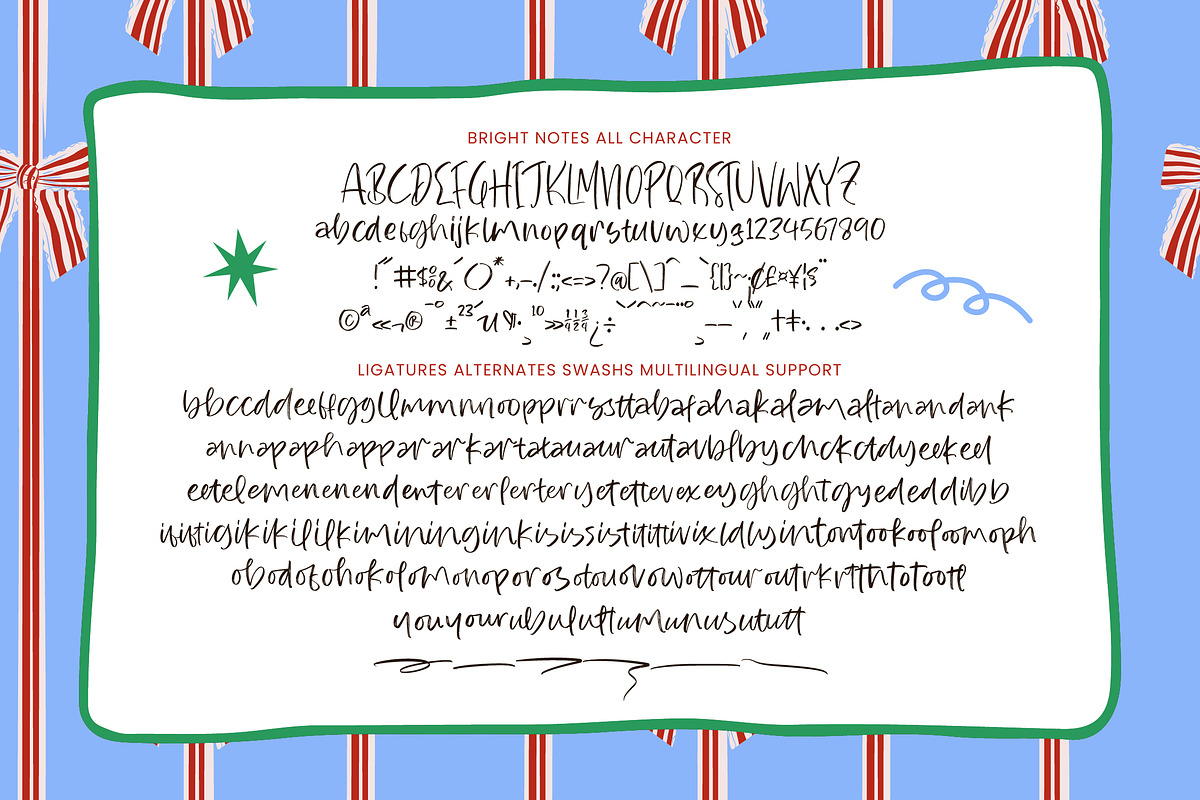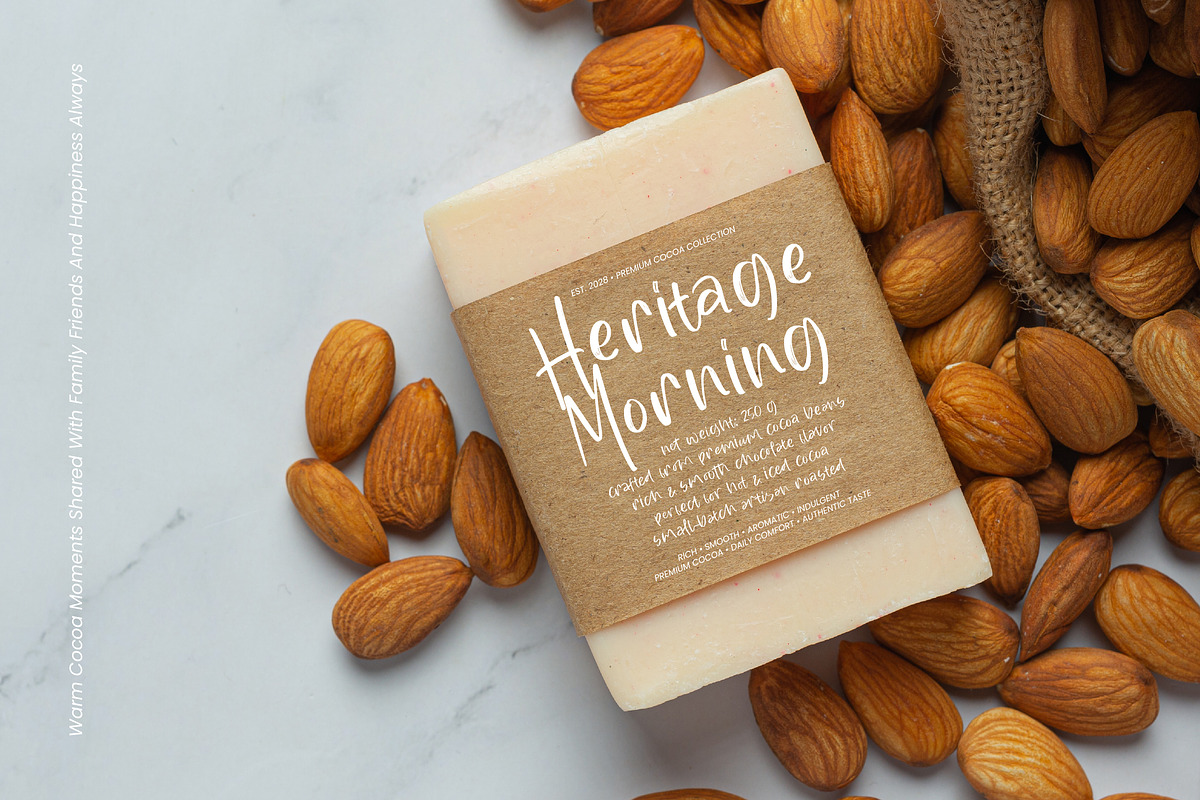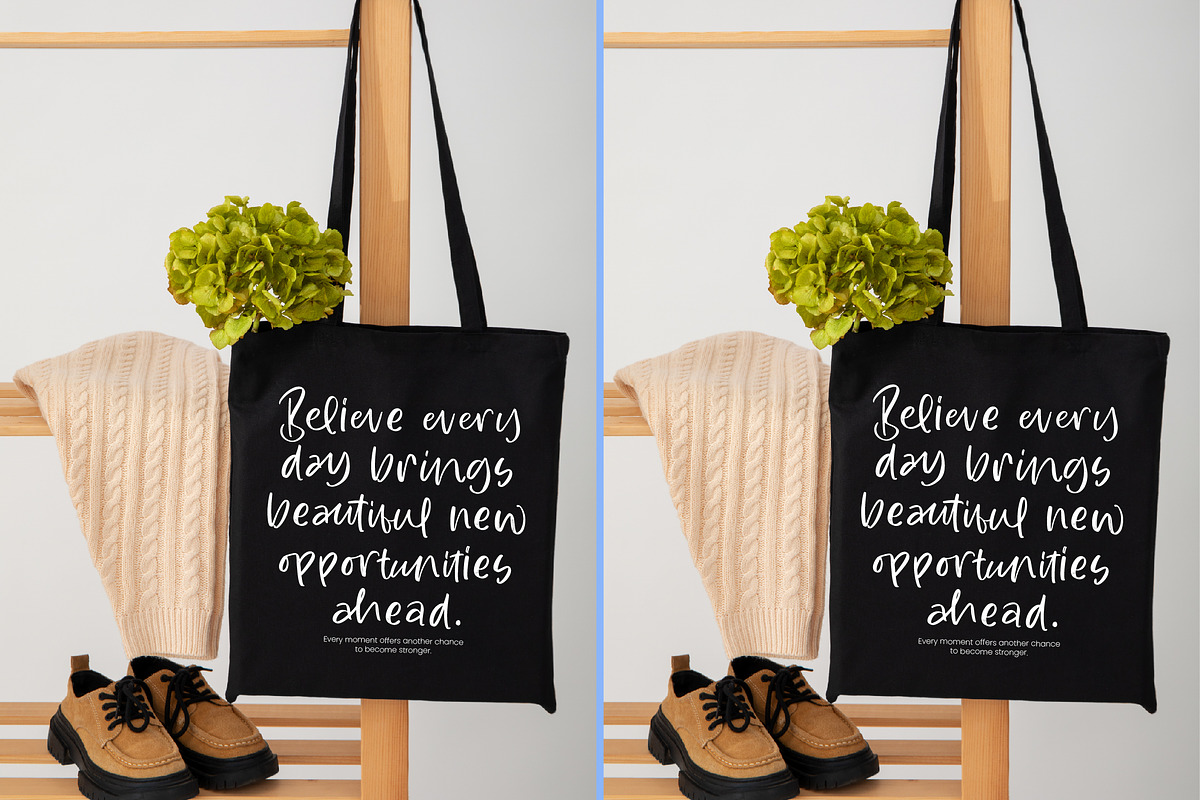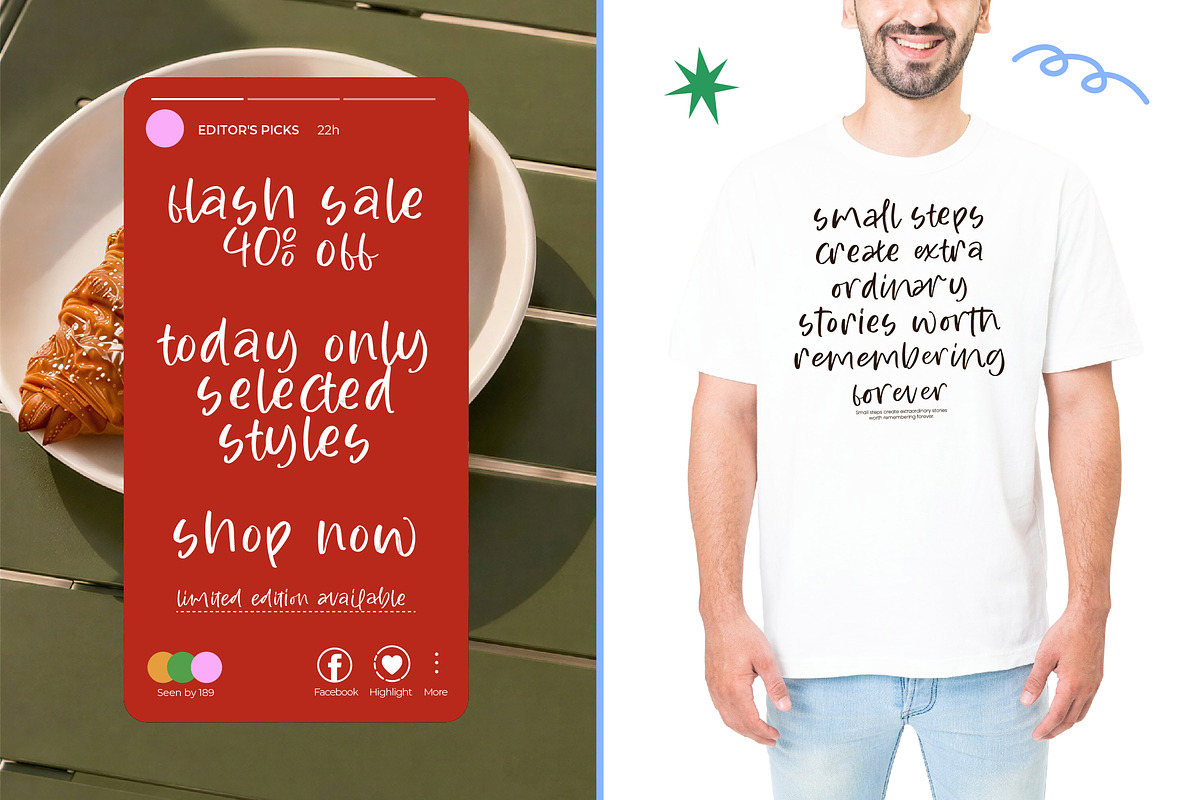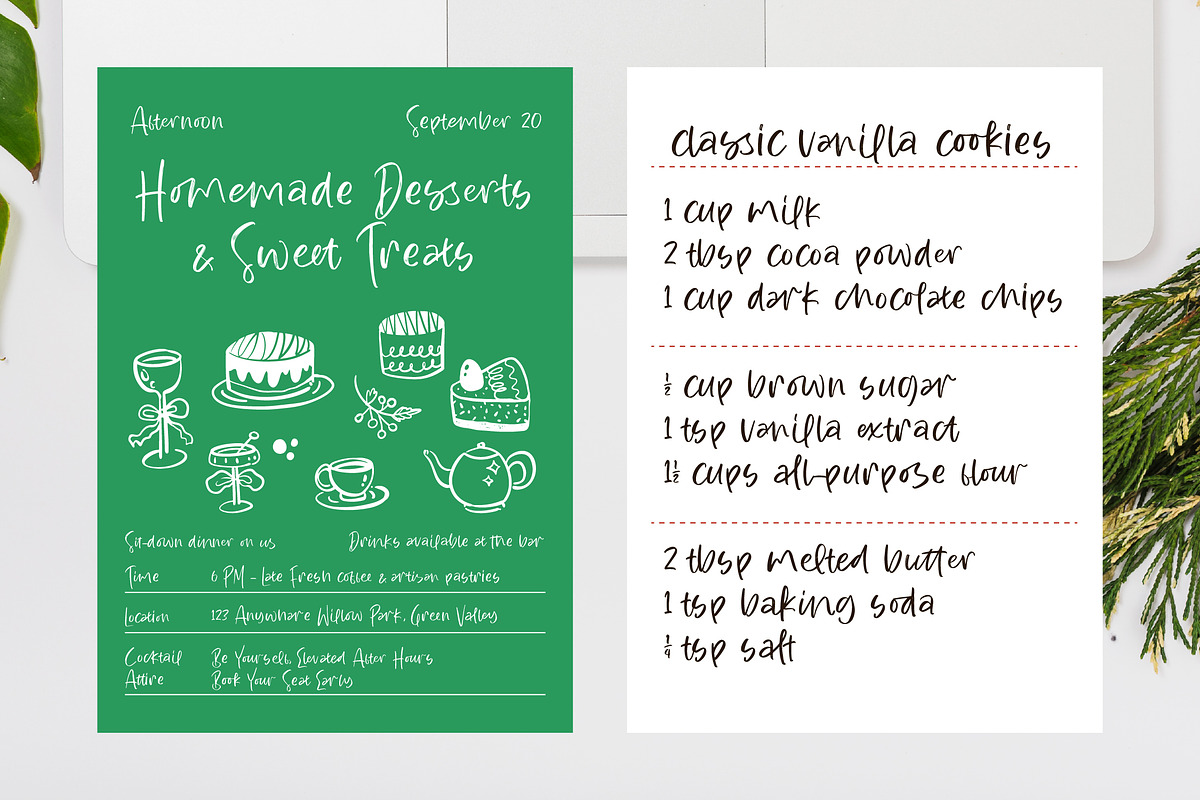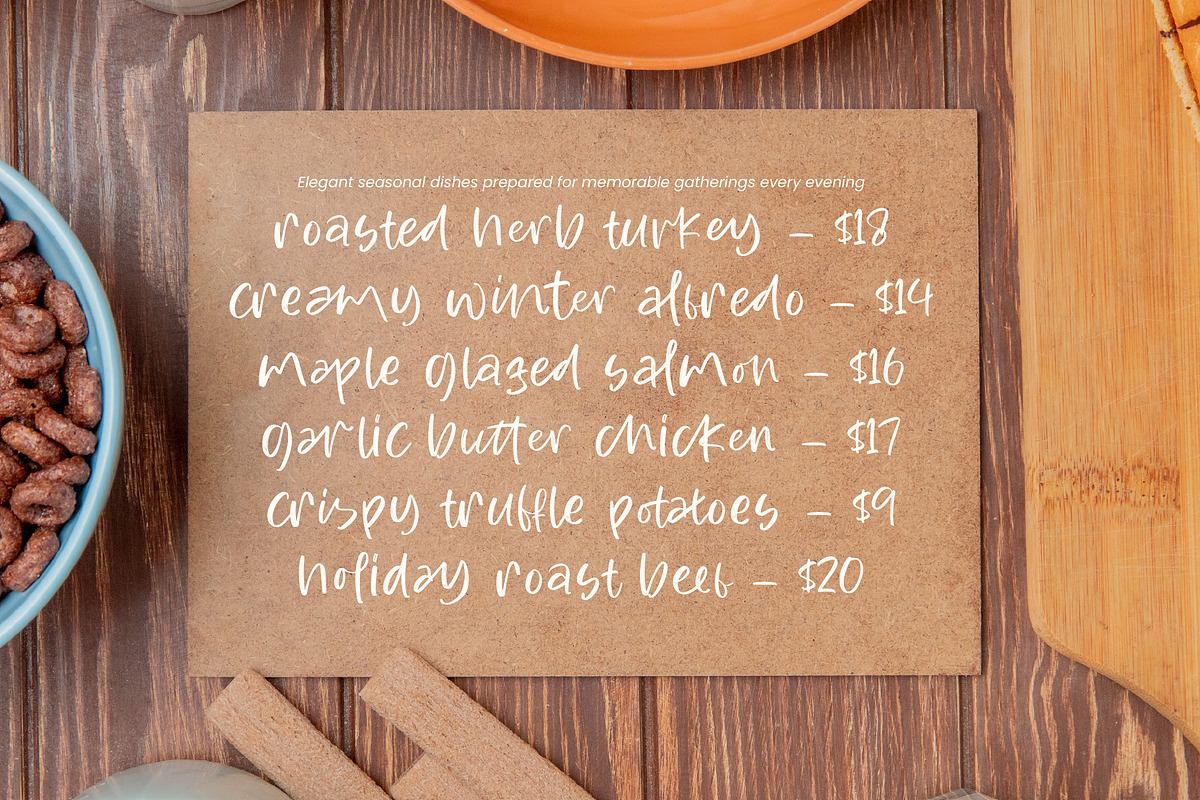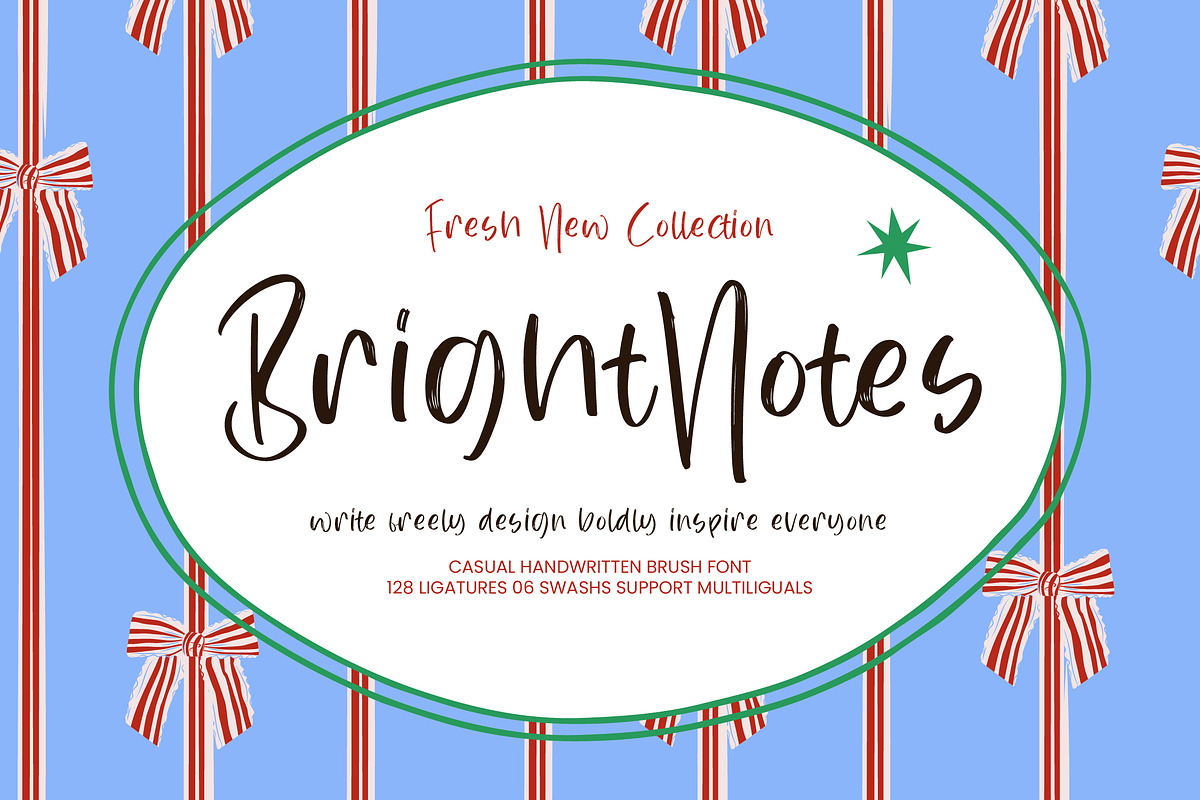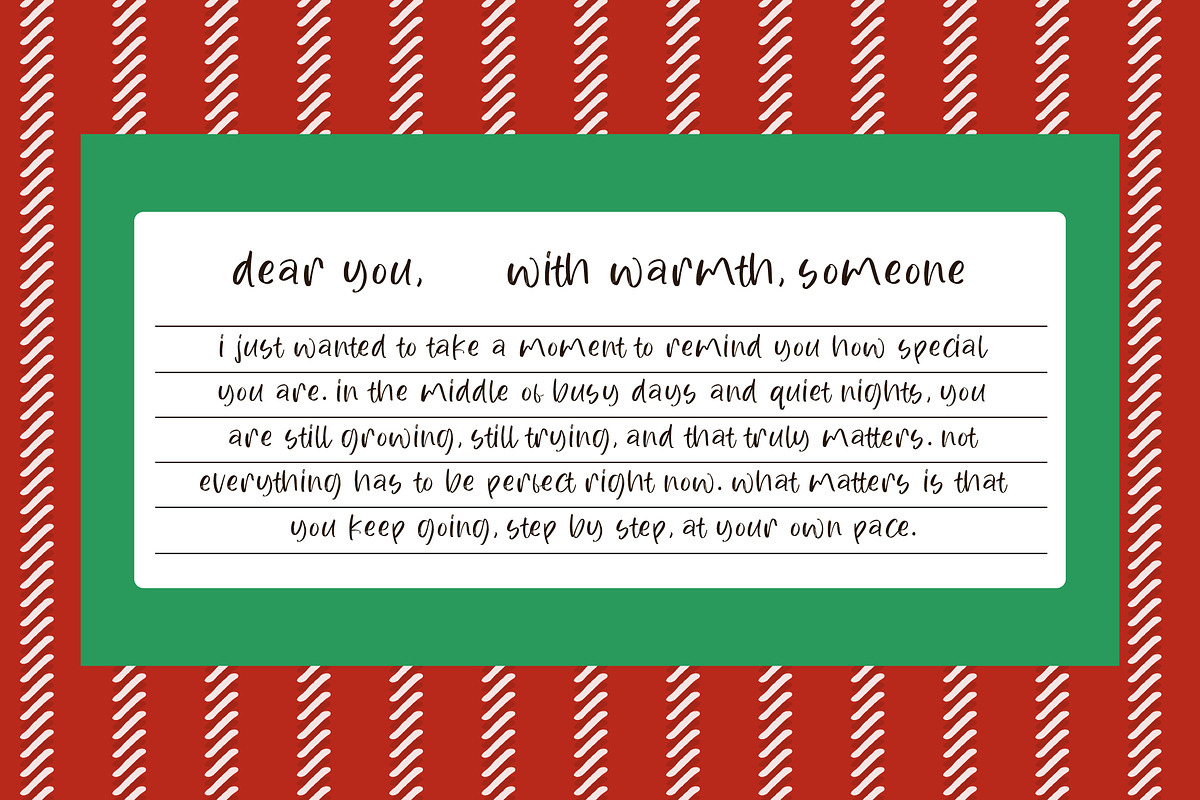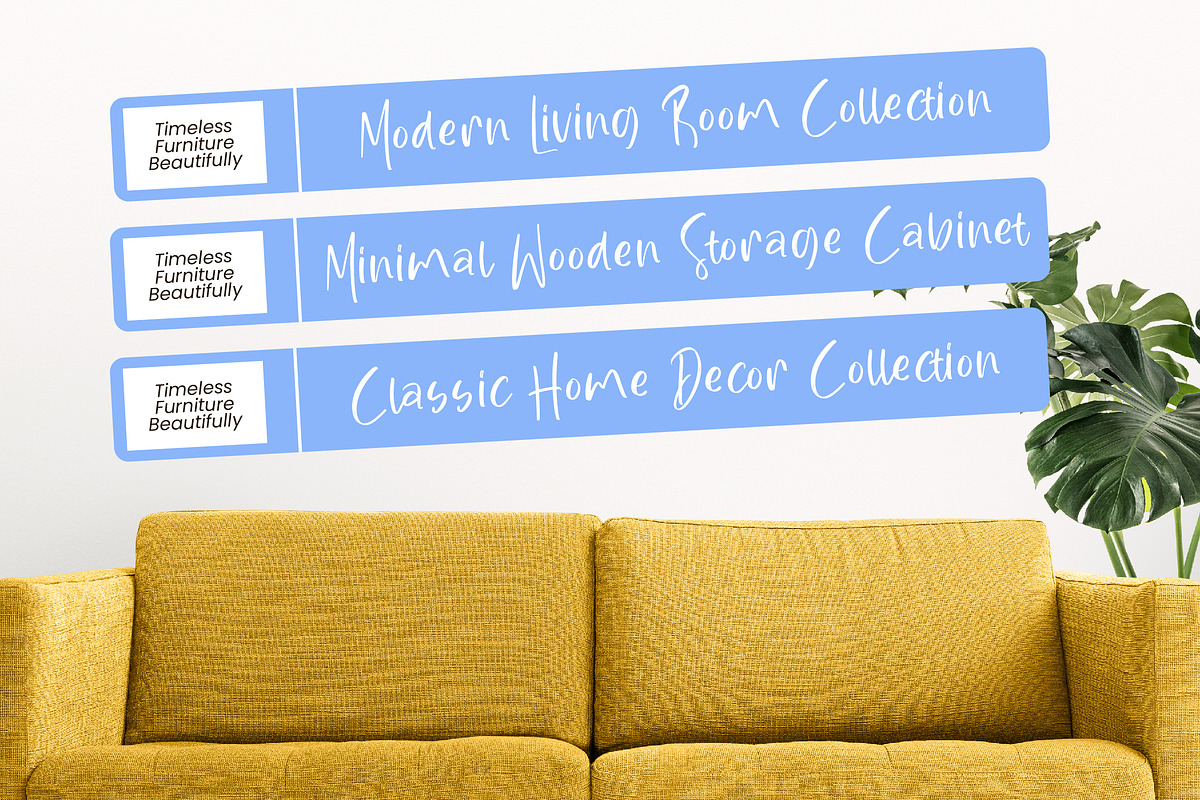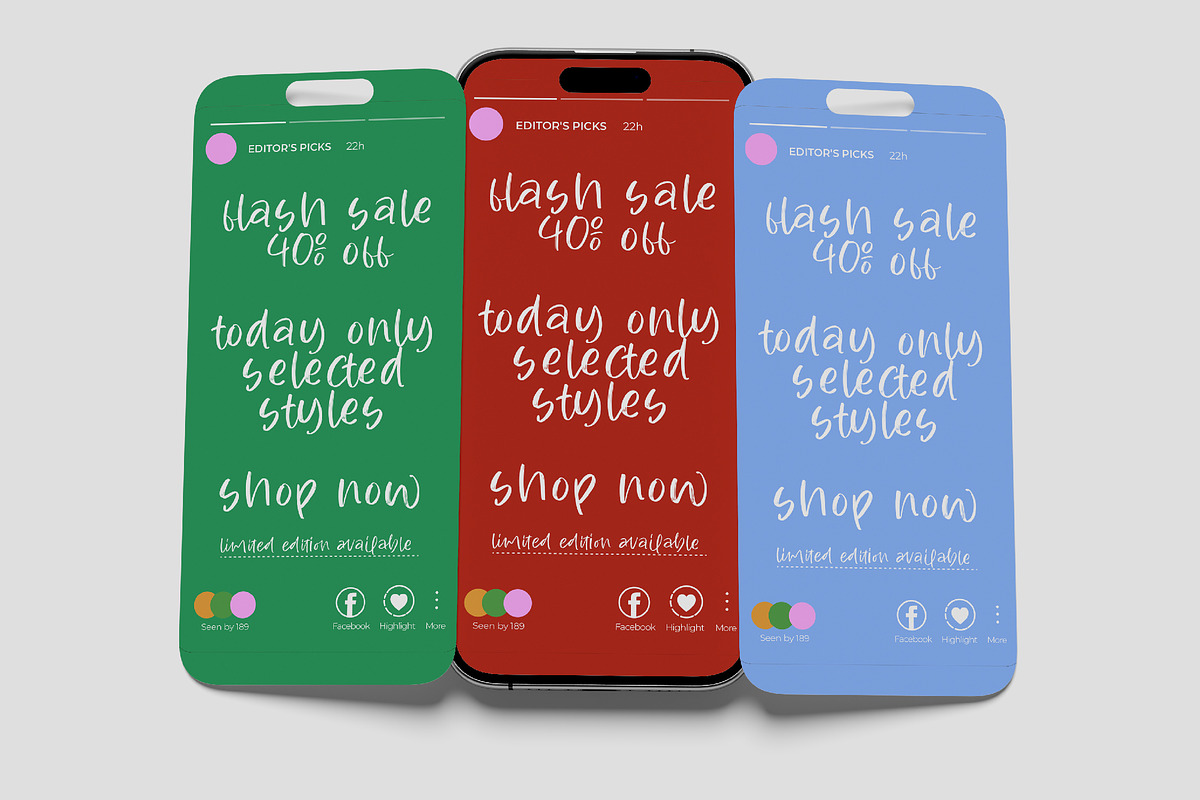
Bright Notes Casual Handwritten
Bright Notes - Casual Handwritten Brush Font , Elevate your creative projects with an authentic, handcrafted touch that resonates with modern audiences. Bright Notes - Casual Handwritten Brush Font captures the raw, energetic essence of dry-brush strokes, offering a natural rhythm and organic charm that digital typeset often lacks. This versatile brush font is meticulously designed to provide a hand-drawn aesthetic, making it an essential tool for designers seeking to inject personality and artistic flair into their visual storytelling.
Achieve professional-grade results with an extensive array of custom features designed for seamless integration. Featuring over 128 ligatures and unique swashes, Bright Notes - Casual Handwritten Brush Font allows for high levels of customization, ensuring your text looks like a custom piece of lettering every time. With its extensive multilingual support, Bright Notes - Casual Handwritten Brush Font adapts seamlessly across global markets, making it incredibly versatile for international projects and ensuring your brand's voice is heard worldwide.
Unlock endless possibilities across diverse design landscapes, from high-end retail to digital content creation. This typeface is the perfect choice for lifestyle branding, modern packaging, social media graphics, and editorial headers that require a bold, approachable presence. Whether you are developing creative advertisements or inspirational quote cards, Bright Notes - Casual Handwritten Brush Font provides the visual impact needed to capture attention and build brand authenticity.
Experience the perfect blend of casual elegance and modern versatility with this standout typographic solution. The hand-lettered style of Bright Notes - Casual Handwritten Brush Font bridges the gap between artistic expression and commercial functionality, making it a highly marketable asset for any design library. Invest in Bright Notes - Casual Handwritten Brush Font today to ensure your next campaign benefits from a distinctive visual identity and premium craftsmanship.